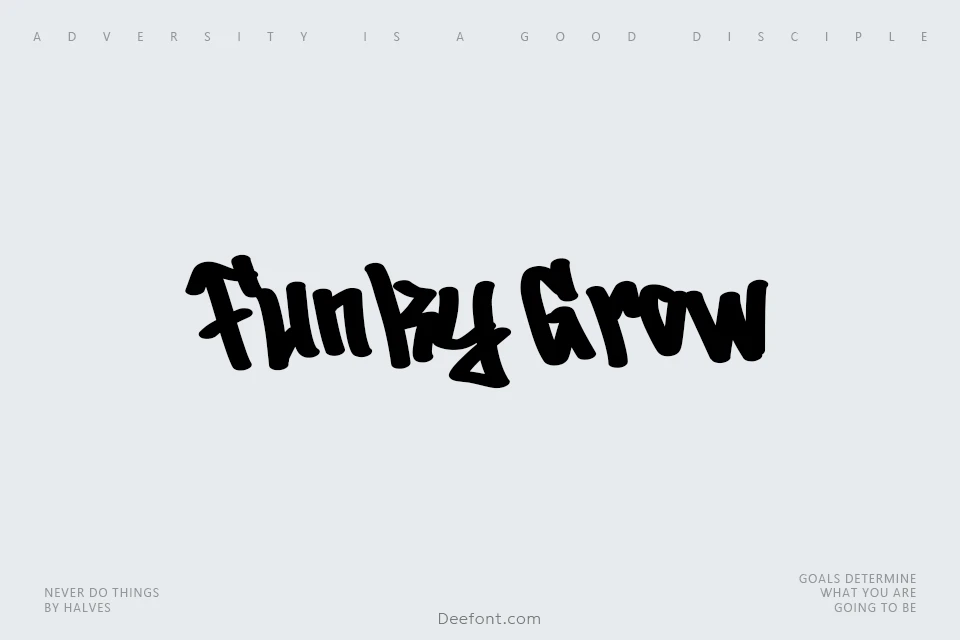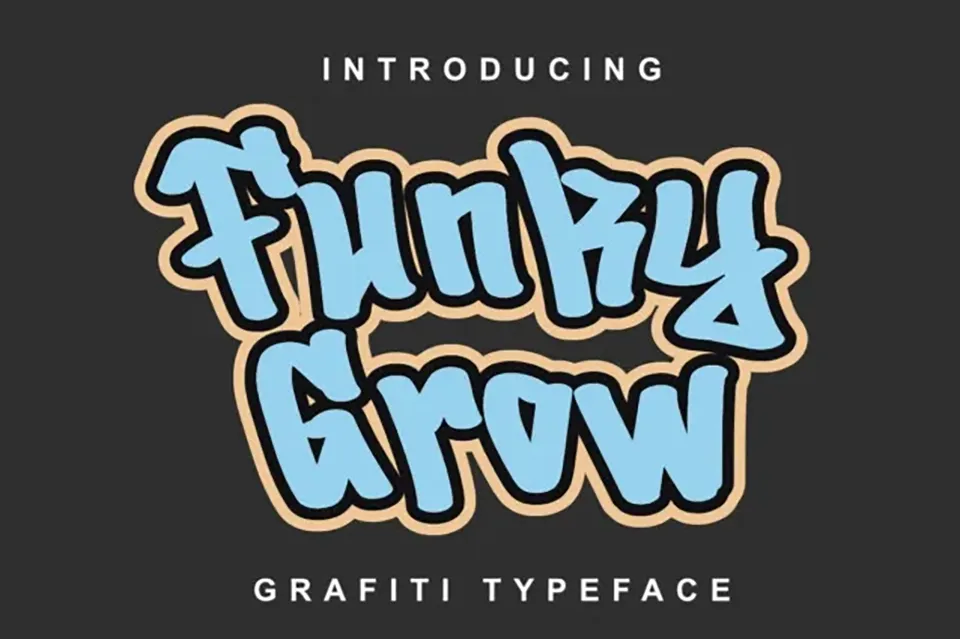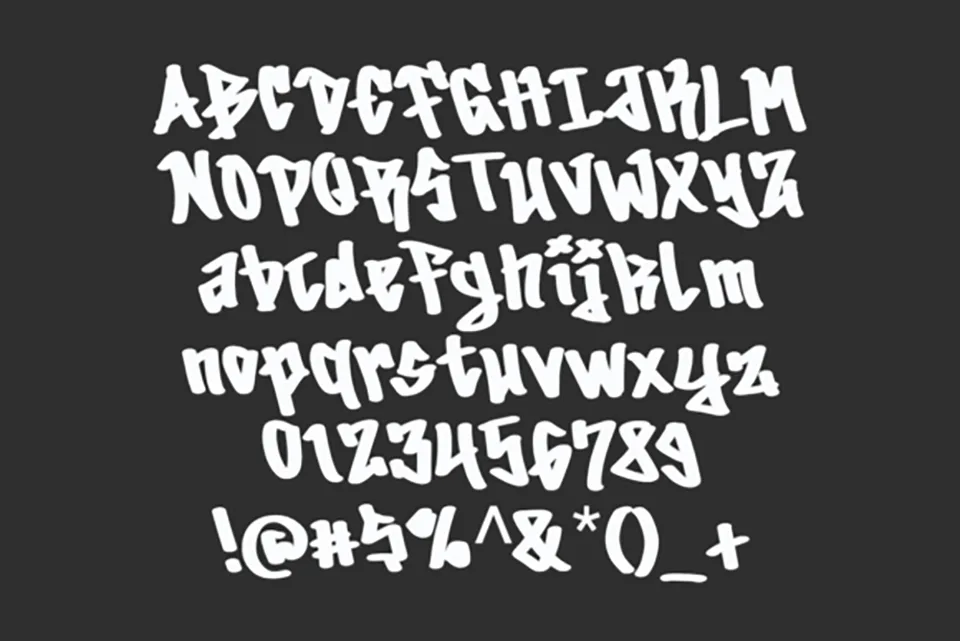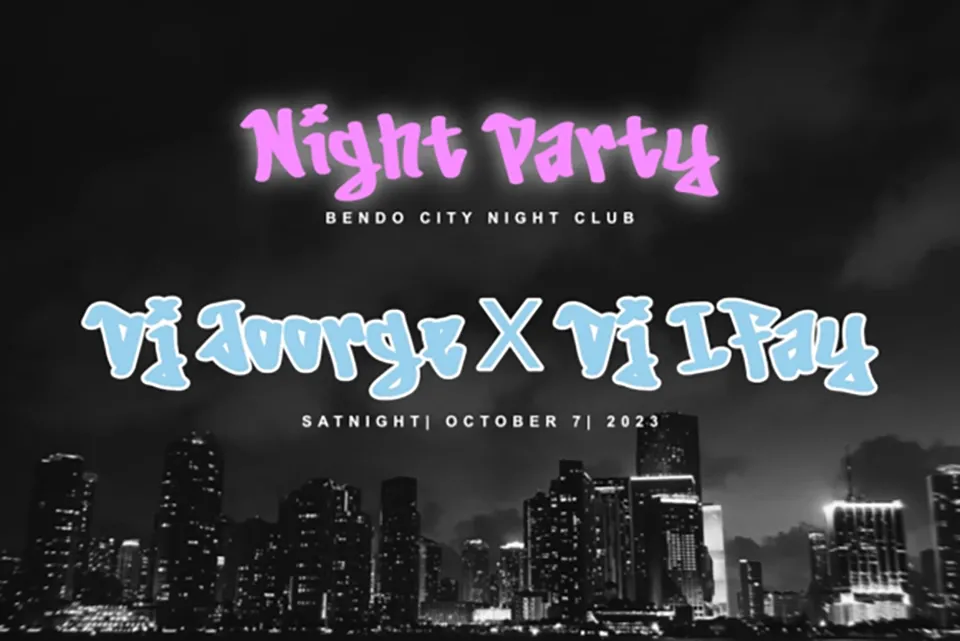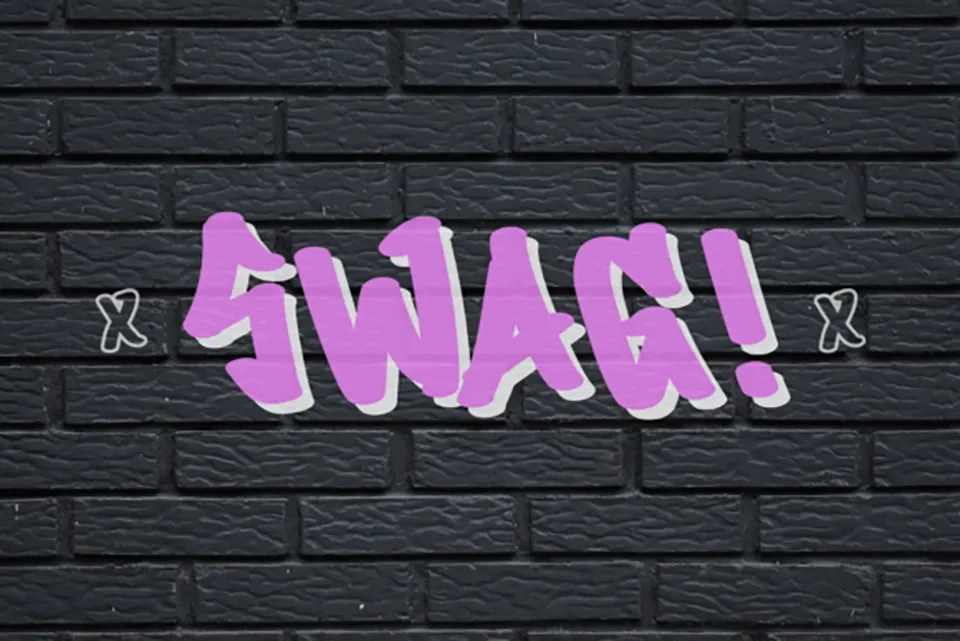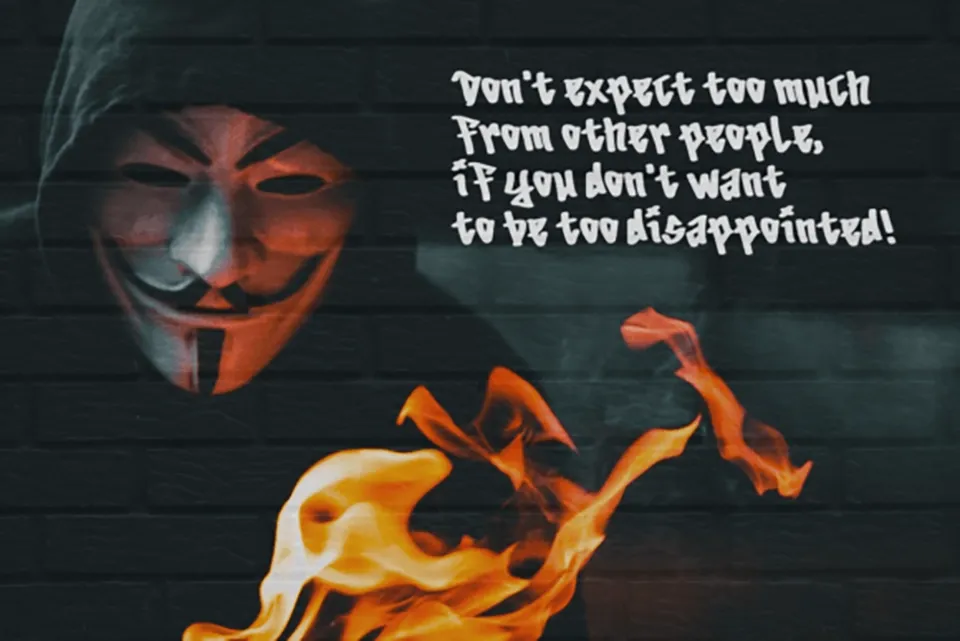
Funky Grow Font
Funky Grow Font is a modern display typeface featuring a simple yet trendy graffiti style. Its bold, sharp-edged letterforms make it perfect for street-themed projects, crafts, and any design that needs a unique and expressive touch.